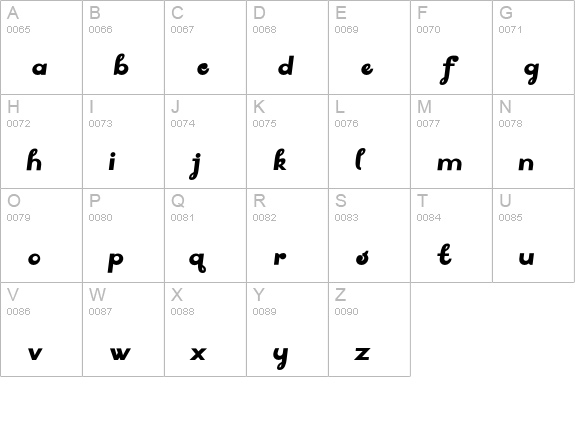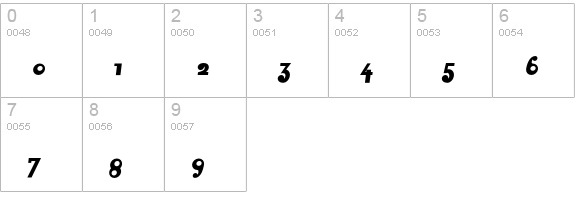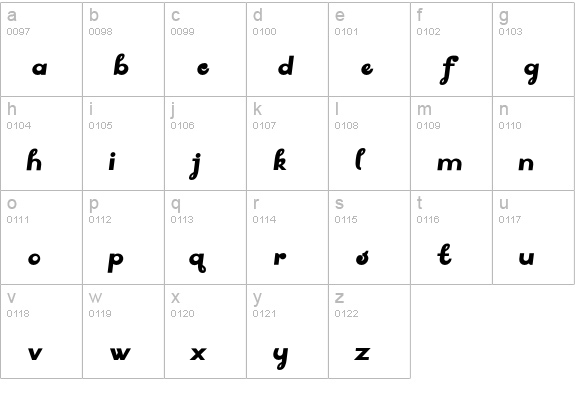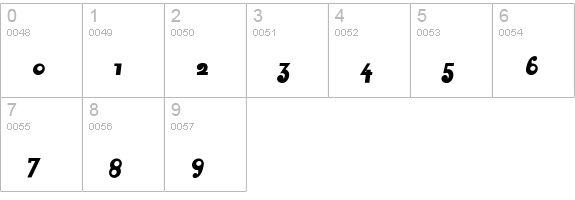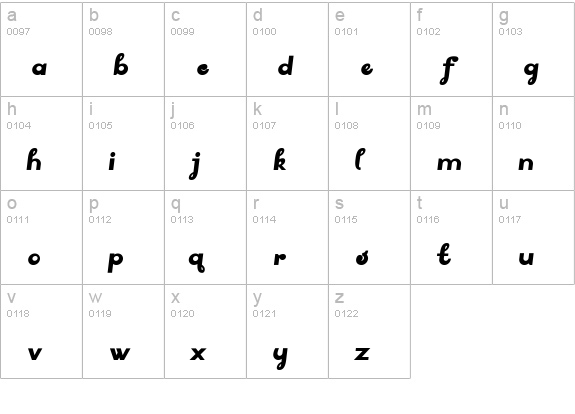
Pussy-ExtraSloped font is a sleek and modern typeface that exudes elegance and sophistication. With its unique sloped design, this font adds a touch of originality to any project. The effortless curves and clean lines of Pussy-ExtraSloped make it perfect for branding, logos, headlines, and more. Best of all, Pussy-ExtraSloped font is available for free download at FontsMarket.com. Whether you're a designer looking to add a stylish flair to your creations or a business owner in need of a fresh new look, Pussy-ExtraSloped font is the perfect choice. Don't miss out on this opportunity to enhance your designs with this stunning font that is both versatile and eye-catching. Download Pussy-ExtraSloped today and take your projects to the next level!